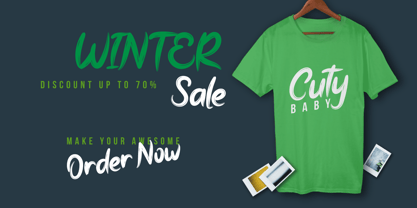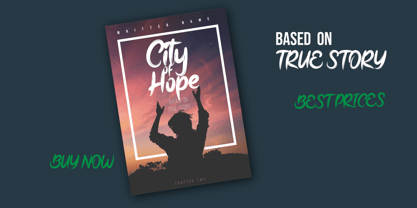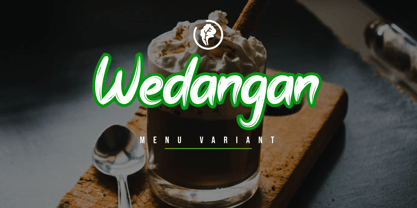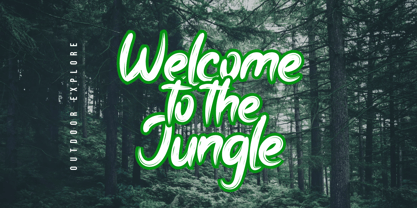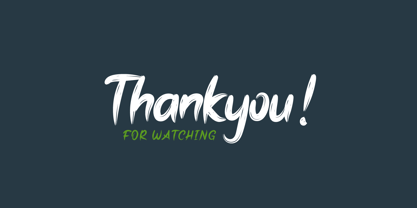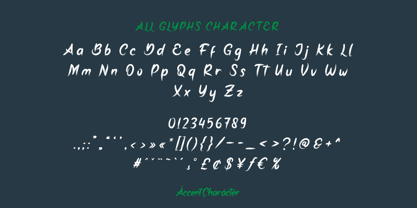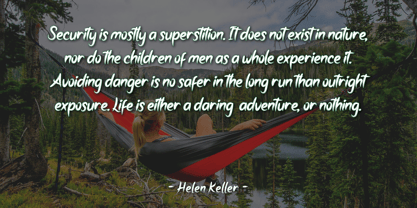
Belog Goal
by Product Type
The Belog Goal Font Family was designed by Lita Faolina and published by Product Type. Belog Goal contains 1 styles.
Step into the world of elegance and sophistication with Belog Goal - Brush Handwritten Font! With its graceful strokes and timeless charm, Belog Goal adds a touch of class to any project. Whether you're designing luxurious wedding invitations, crafting high-end branding for a boutique hotel, or creating chic product packaging, Belog Goal is the epitome of sophistication. Get ready to elevate your designs and leave a lasting impression with Belog Goal - the font that exudes timeless beauty and refinement!